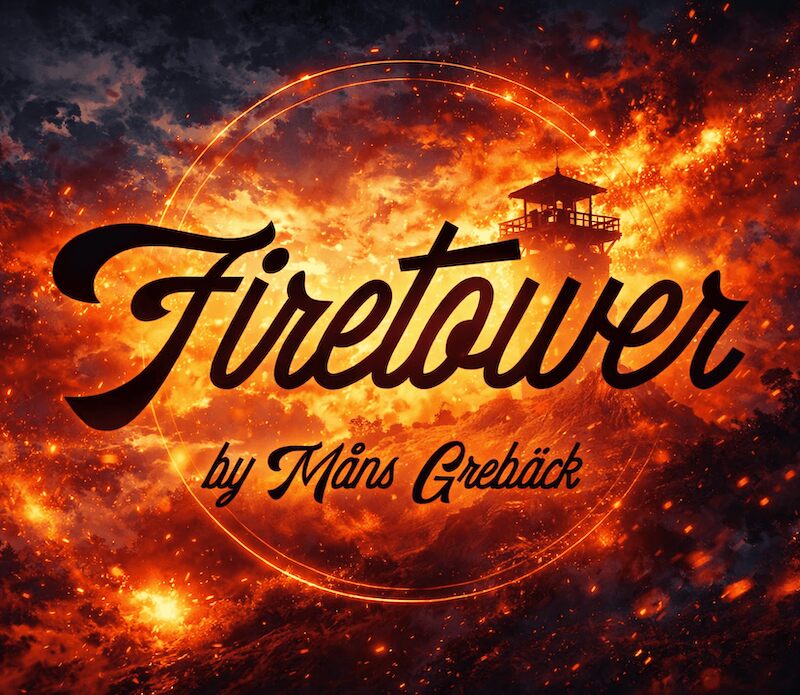
Firetower font is a breathtaking script by Måns Grebäck available as a free font for personal use. It has exquisite elegance that makes it a signature-like style that is both sleek and dynamic. Its elements flow smoothly to form a sophisticated block of text or even a single word. Moreover, its stylish features leave a long-lasting impression on readers.
Firetower is an excellent free font for branding projects like product packaging, advertisement, logos, and poster designs. Its expressive characters can also be mixed with other typography styles for a vivid contrast. Specifically, this font works like magic on book covers, invitation cards, and monumental signboards.
Firetower is a captivating script font featuring a strong, flowing hand and a steady rhythm. The uppercase letters are decorative, while the lowercase characters are crafted with monoline strokes, creating a warm and rustic presence that enhances any design.